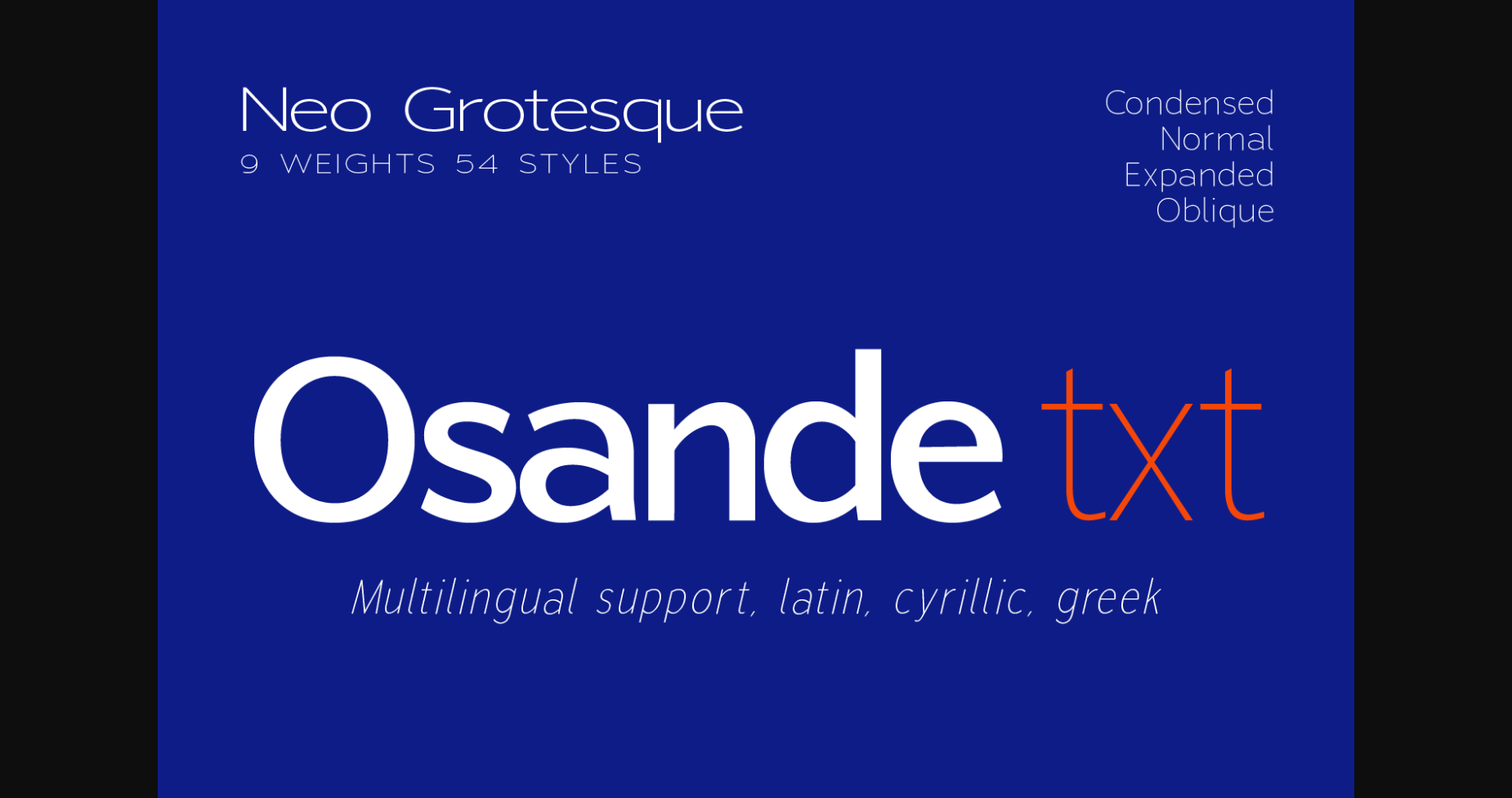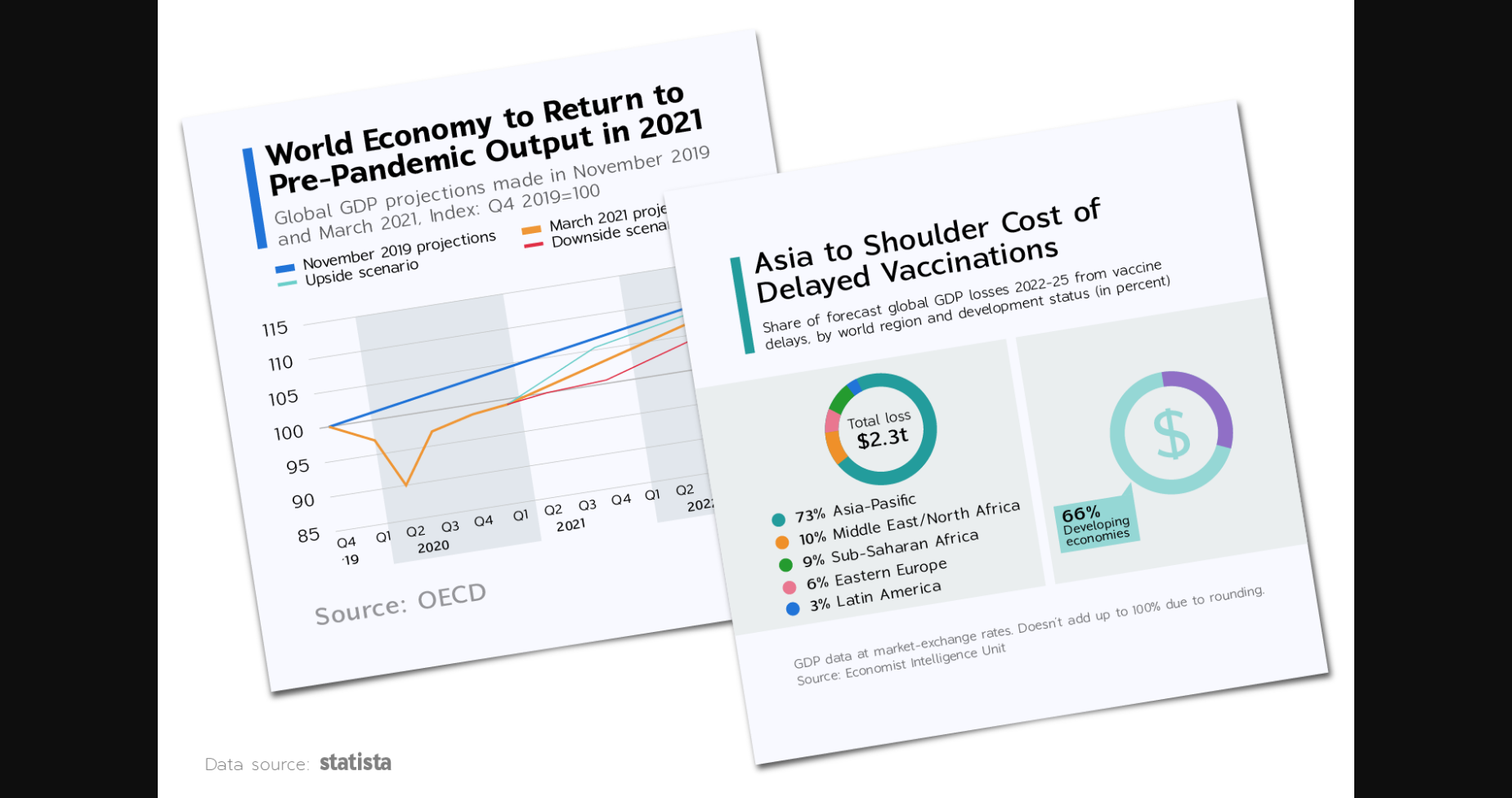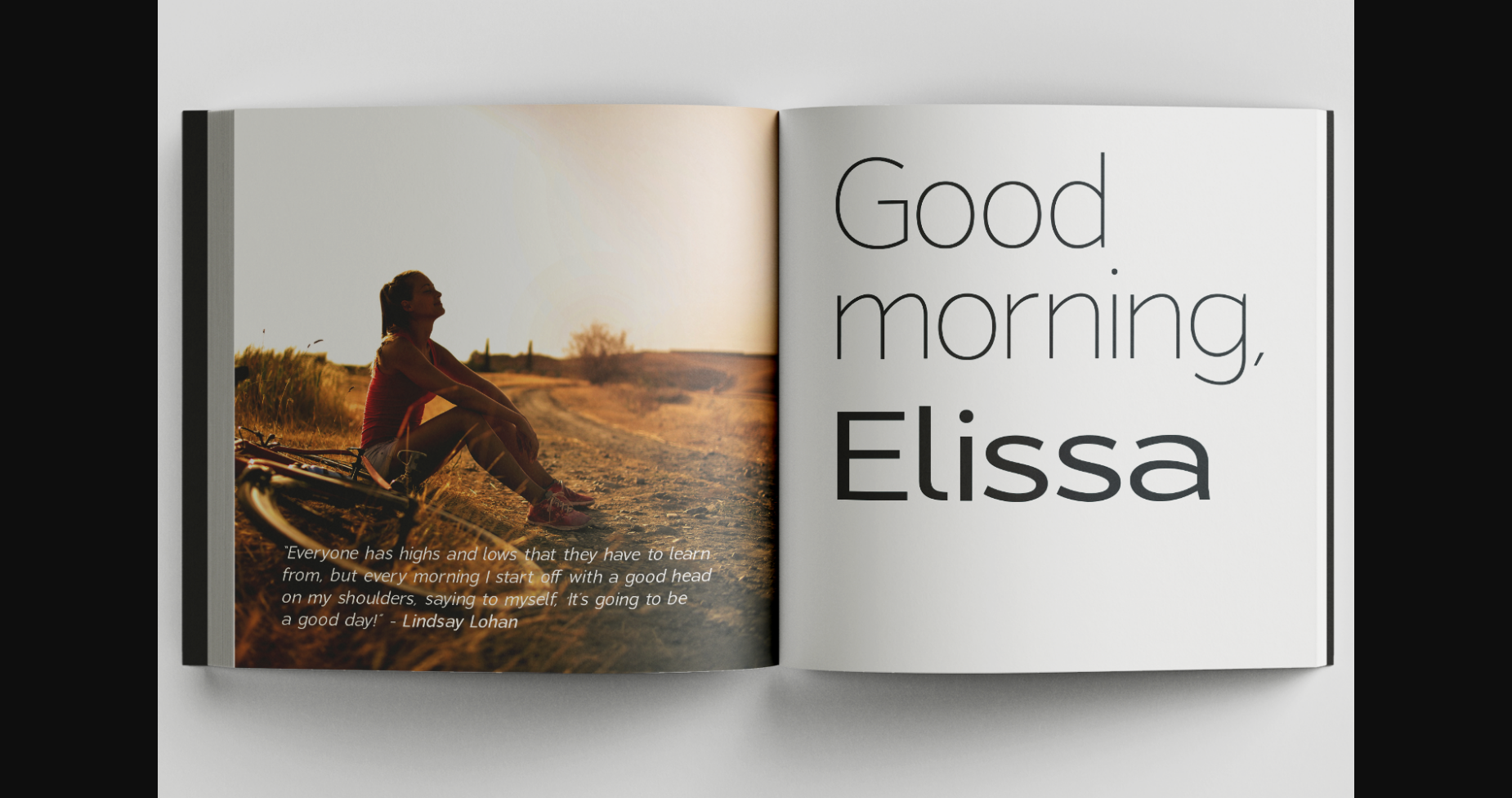
About Osande Txt Font
Osande Txt is a cool, modern and neat sans serif font.
It is suitable for logotype, headline font, in corporate identity, brand identity, apparel industry, poster, music, movie, game, magazine, book, comic, cartoon, YouTube, Instagram, website, or any of your creative design projects.